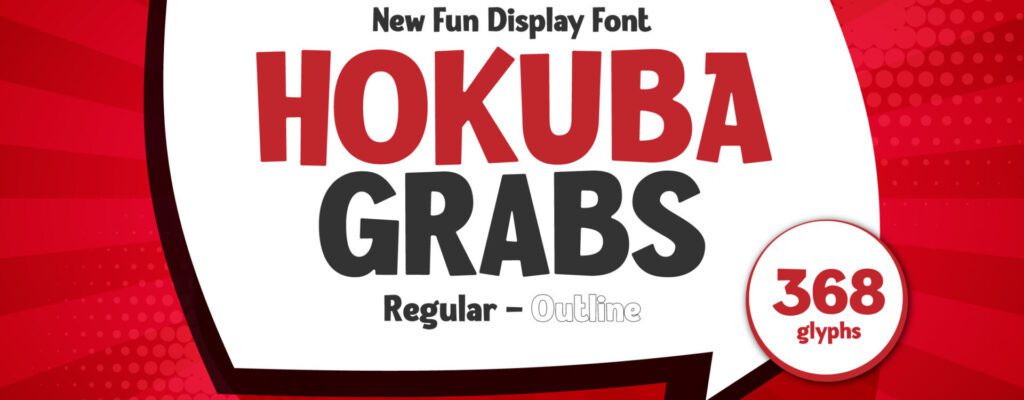
Hokuba Grabs – New Fun Display Font
Hokuba Grabs is a New display font that creates with a very good concept and adjusted well to keep the legibility. Hokuba Grabs Display Font Comes with upper and lowercase Standard Characters, Punctuation, Numerals, And other Glyphs variation of the OpenType features/ Ligatures.